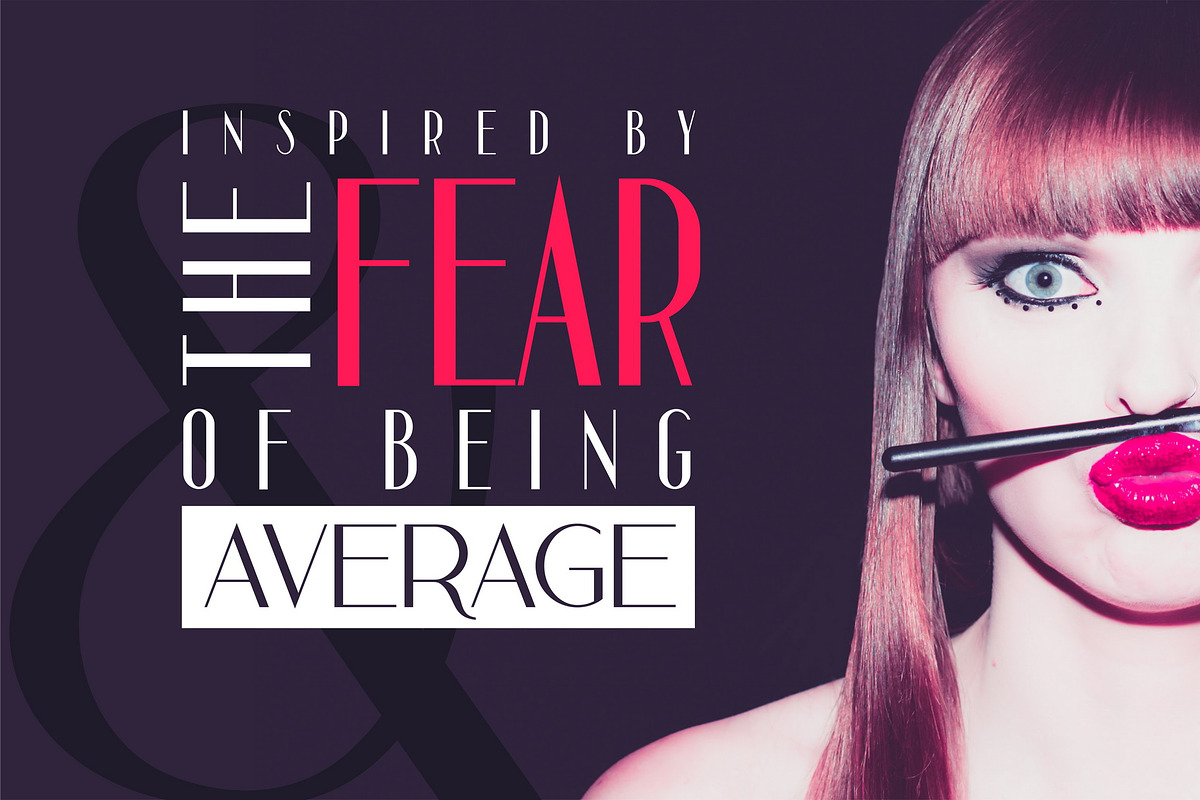
Doppelganger - Modern Sans Serif
Doppelganger is a modern sans serif. The font is represented by condensed lowercace and extended uppercase. To get an elegant and contemporary design, combine them together. The font is easy to use in various design programs or without any program.
Doppelganger is suitable for retro and modern typographic posters and prints, feminine branding, design of books and fashion magazines.
The font has extensive language support, it includes English, French, German, Italian, Spanish, Portuguese, Danish, Norwegian, Swedish, Finnish, Estonian, Turkish. Need to know if your language is supported? Type any words in the text box below and see if all characters you need are there.
Doppelganger sans includes stylistic alternates for symbols: c, g, j, k, o, q, r, u, &, K, O, Q, R, W, 0, 1, 2, 3, 4, 5, 6, 7, 8, 9. There are also ligatures: sc, hg, sh, gh, ge, je, st, sp, sr, se, sa, ja, ph, qu, oo, ss, pp, ST, SS, QU, HA, SA, GA.